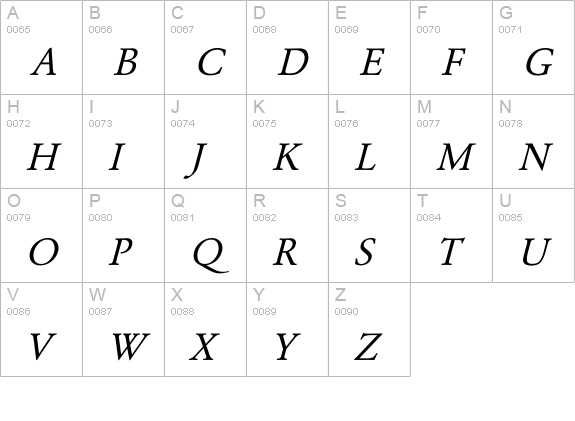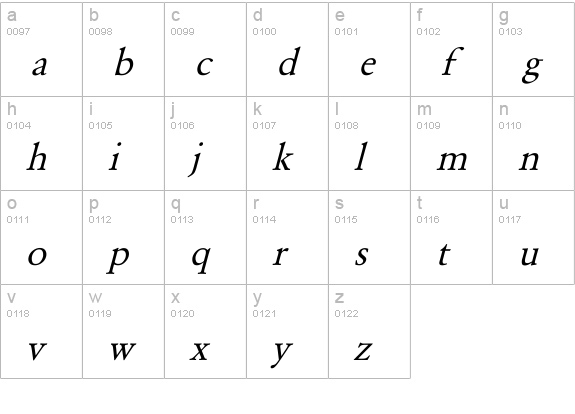
Yearlind Italic is a distinctive, italic variant in the Yearlind typeface family \xE2\x80\x94 well suited to design and typography projects.
Yearlind Italic is a stunning and elegant font that exudes sophistication and style. With its sleek and flowing curves, this typeface is perfect for adding a touch of class to any design project. Whether you are creating wedding invitations, branding materials, or social media graphics, Yearlind Italic will make your text stand out. The best part about Yearlind Italic is that it is available for free download at FontsMarket.com. You can easily access this beautiful font and start using it in your projects right away. Don't miss out on the opportunity to elevate your designs with Yearlind Italic - download it today and see the difference it can make!